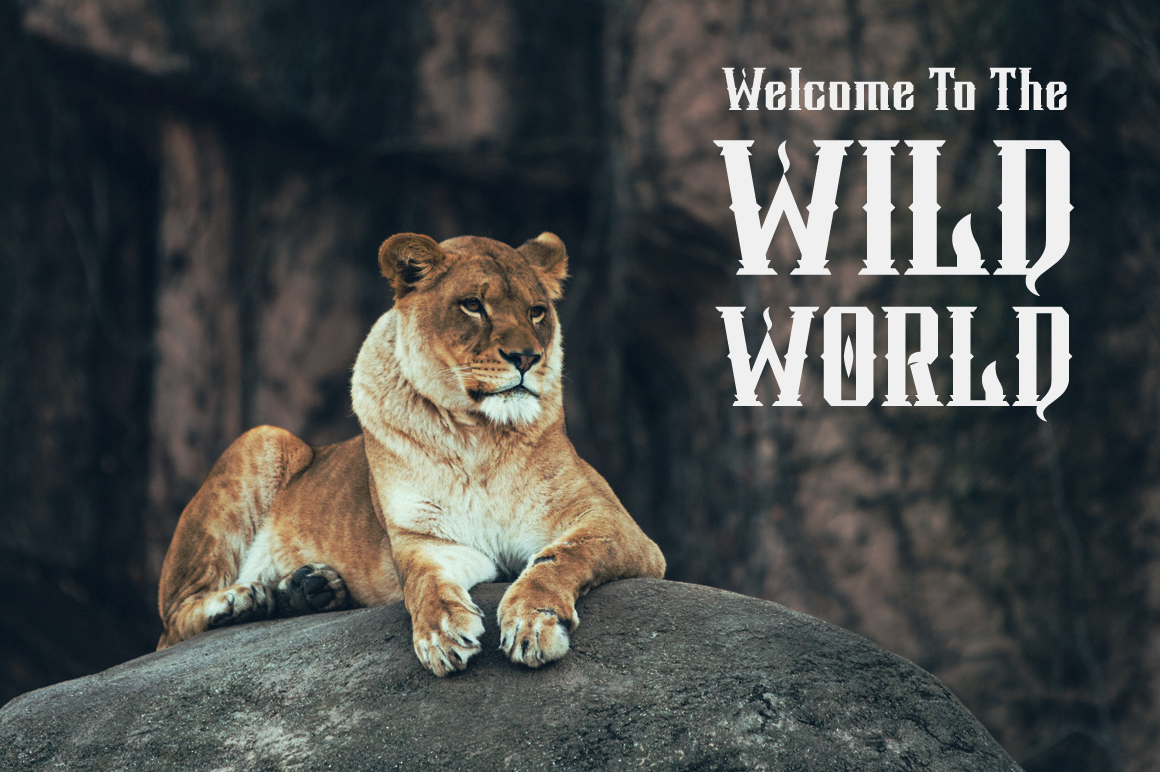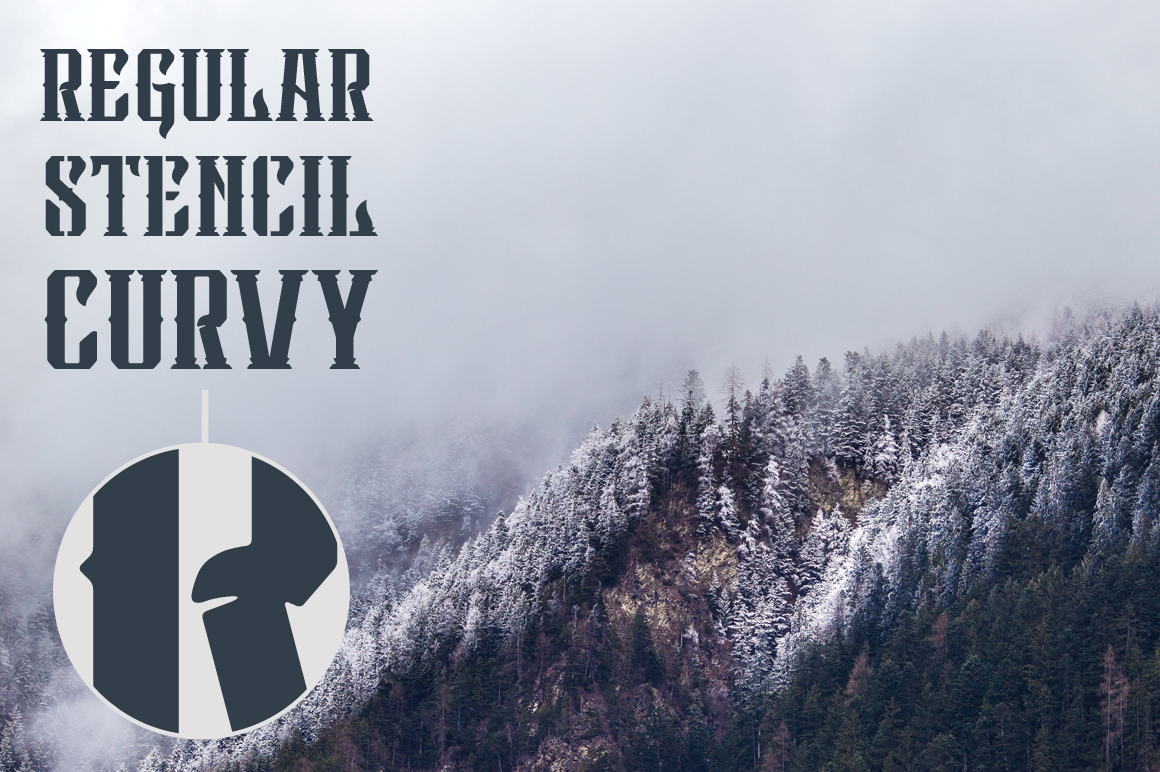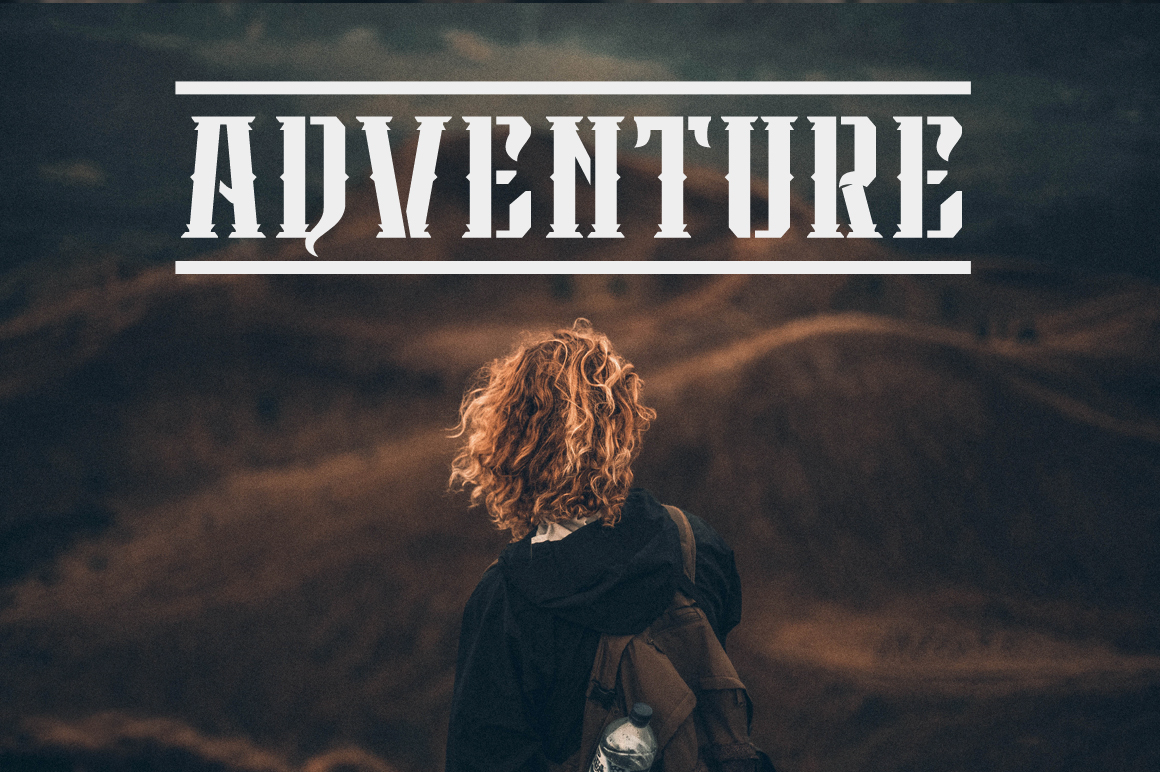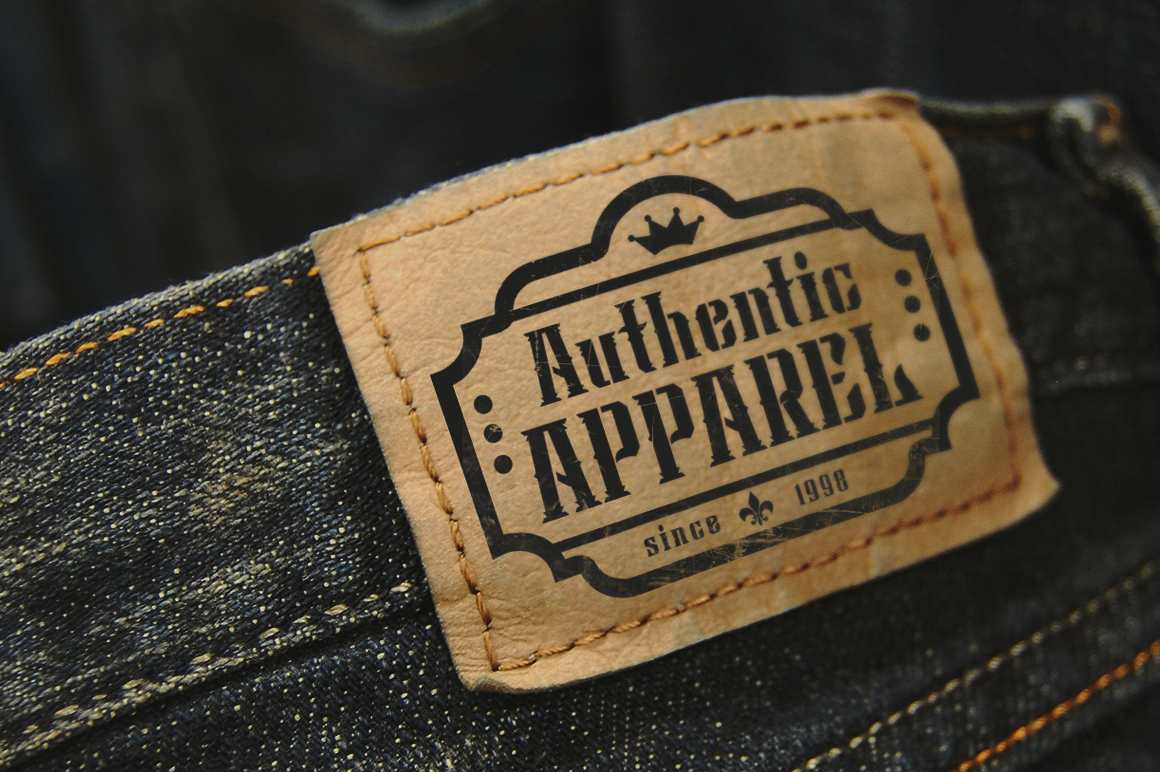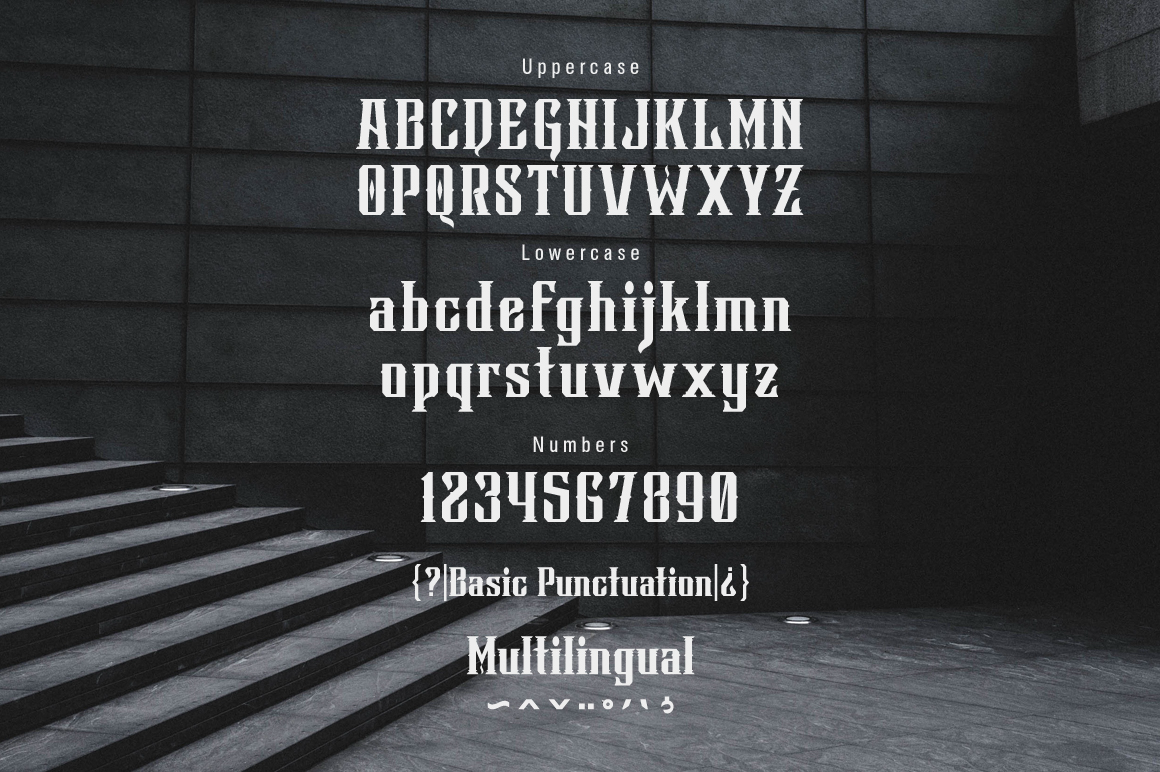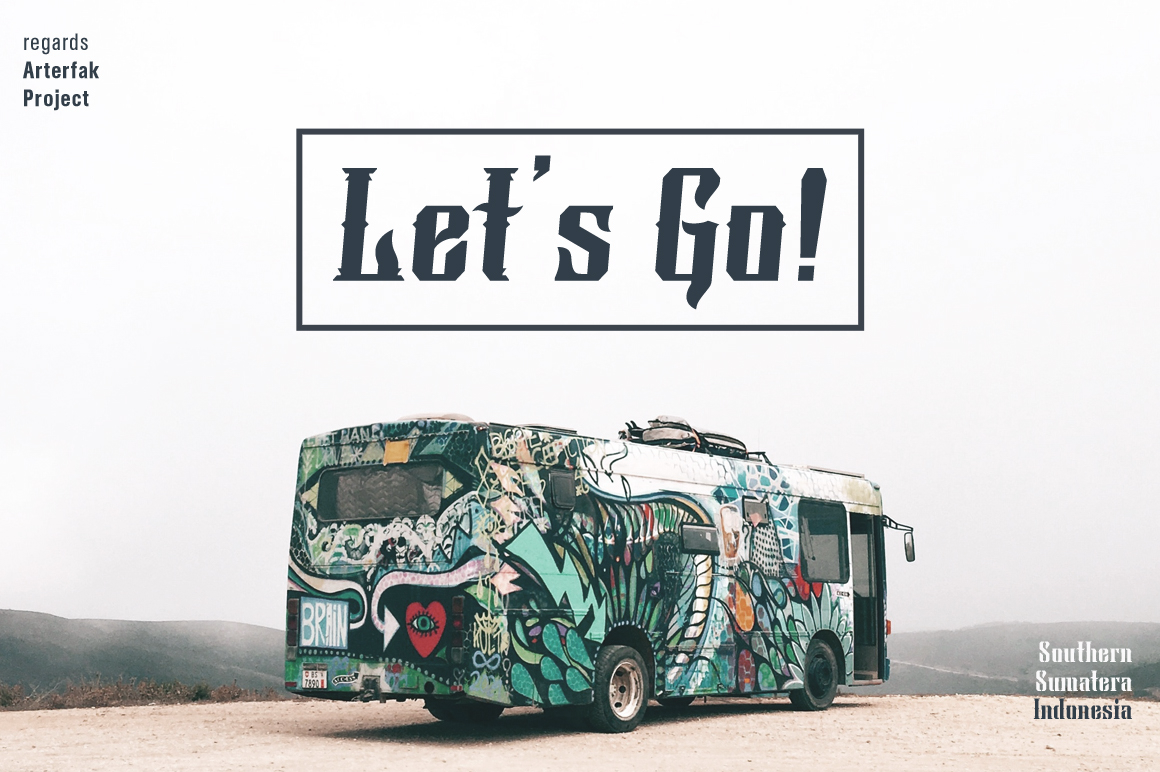
Introducing Bsakoja Font: A Stunning Slab Serif Display Font
Are you looking for a font that can add a touch of elegance and sophistication to your design projects? Look no further than the Bsakoja font. This stunning slab serif display font comes in three different styles: Bsakoja Regular, Bsakoja Curvy, and Bsakoja Stencil. With its flexible shapes, Bsakoja can be applied to various design styles, including vintage, minimalist, and modern designs.
Bsakoja Font Styles
Bsakoja font offers three unique styles to cater to different design needs:
- Bsakoja Regular: The regular style is perfect for designs that require a clean and classic look. Its slab serif design makes it ideal for headings, titles, and display text.
- Bsakoja Curvy: The curvy variant adds a touch of playfulness and elegance to your designs. Its smooth curves make it perfect for printing and creating eye-catching headlines.
- Bsakoja Stencil: The stencil style adds a rugged and edgy touch to your designs. It’s perfect for creating bold and striking graphics.
Design Versatility
One of the standout features of the Bsakoja font is its versatility. Its flexible shapes allow it to be applied to various design styles, including:
- Vintage Design: Bsakoja’s slab serif design makes it perfect for vintage-inspired designs. Use it to create distressed or worn-out effects to give your designs a retro look.
- Minimalist Design: Bsakoja’s clean and simple design makes it ideal for minimalist designs. Use it to create bold and striking headlines that still convey a sense of simplicity.
- Modern Design: Bsakoja’s sleek and sophisticated design makes it perfect for modern designs. Use it to create eye-catching headlines and titles that demand attention.
Why Choose Bsakoja Curvy for Printing?
The Bsakoja Curvy variant is specifically recommended for printing. Its smooth curves and elegant design make it perfect for creating eye-catching headlines and titles. Here are a few reasons why you should choose Bsakoja Curvy for printing:
- High Readability: Bsakoja Curvy’s smooth curves make it highly readable, even at smaller font sizes.
- Visual Appeal: The curvy design adds a touch of elegance and sophistication to your prints, making them stand out from the crowd.
- Flexibility: Bsakoja Curvy can be used for a wide range of printing applications, from business cards to billboards.
Tips for Using Bsakoja Font
Here are a few tips for using the Bsakoja font in your design projects:
- Experiment with Font Sizes: Bsakoja font looks great at various font sizes. Experiment with different sizes to find the perfect fit for your design.
- Pair it with Other Fonts: Bsakoja font pairs well with other fonts, especially sans-serif fonts. Experiment with different font combinations to find the perfect match.
- Use it for Headlines: Bsakoja font is perfect for headlines and titles. Use it to create eye-catching graphics that demand attention.
In conclusion, the Bsakoja font is a stunning slab serif display font that offers flexibility and versatility. With its three unique styles, it’s perfect for various design applications, from vintage to modern designs. Specifically, the Bsakoja Curvy variant is recommended for printing due to its high readability and visual appeal. Whether you’re a designer or a crafter, Bsakoja font is a great addition to your font library.